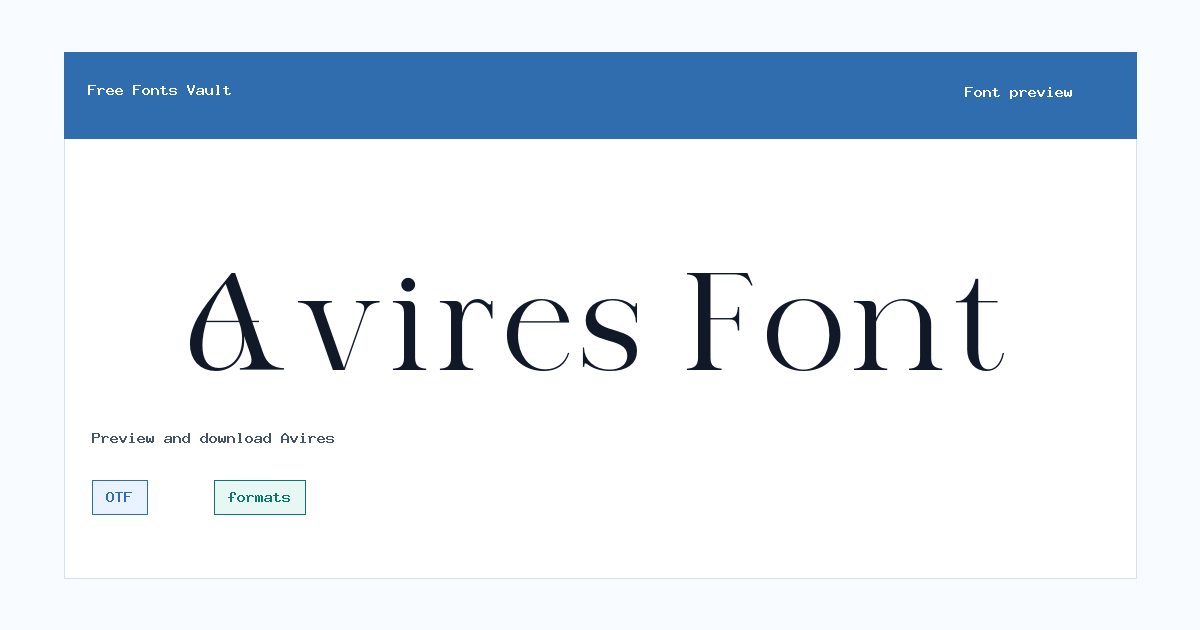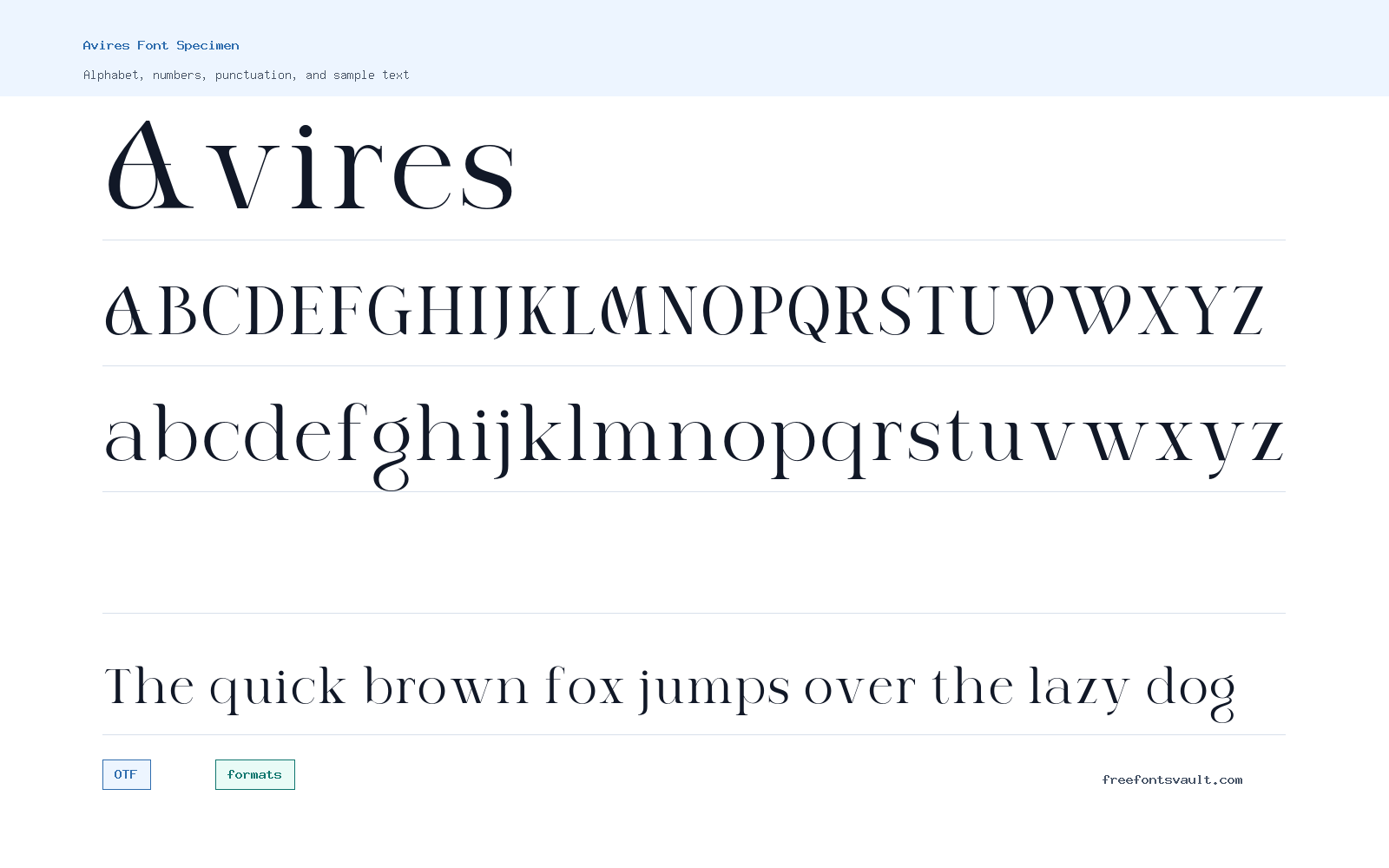
Avires
About Avires Font
Avires works best where the text is short and meant to stand out. Its serif style suits title settings, logo drafts, magazine-style headers, poster text, fashion graphics, and refined social media designs. The demo file gives you the regular style, while commercial font listings also show a broader family with Regular and Italic styles.
Avires is meant for display work where its serif details and ligature style can be noticed. Try it in fashion titles, editorial covers, boutique logo sketches, invitations, and social graphics. Since this page uses the demo regular file, keep testing focused on look and fit, then move to a licensed full package if the design is going into paid or public use.
• Elegant serif display style suited to headlines and short title text
• Fashion, beauty, editorial, and magazine-style titles
• Logo concepts, poster headlines, invitations, and refined social graphics
External listings associate Avires with RagamKata / Ragam Kata Studio, and MyFonts names Yogiswhara Dio Prakoso Riadi as the designer. The current record names Say Studio, so the credit should be checked by an editor.
What is Avires best used for?
It is best for short display text such as titles, posters, logo drafts, editorial layouts, and fashion-style graphics.